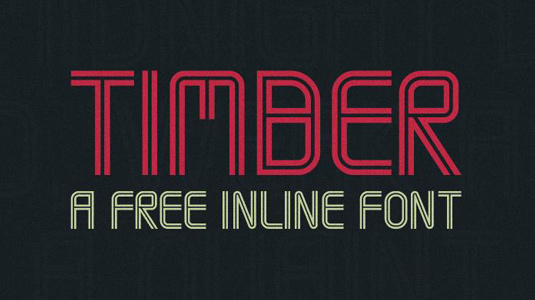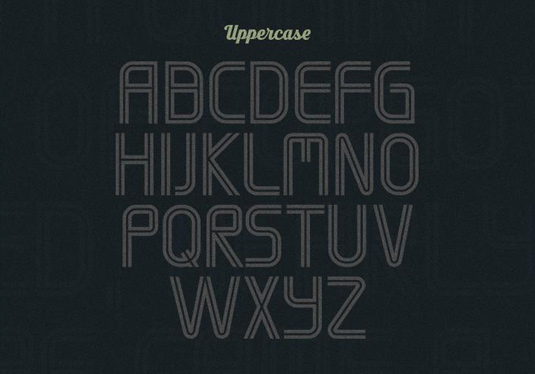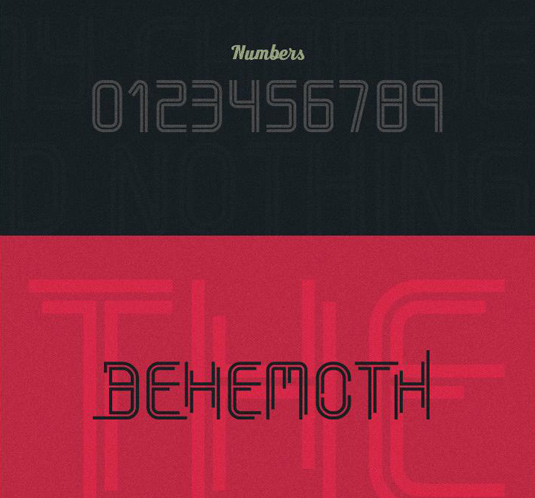
Font of the day: Timber
Timber by Mehmet Reha Tugcu
Today's font of choice, Timber, was created by Istanbul-based designer Mehmet Reha Tugcu. "Timber is very versatile as you can easily combine the letters with minimal effort in Illustrator to achieve great typographic effects," Tugcu comments on Behance. "The lines are perfectly aligned to be connected to each other."